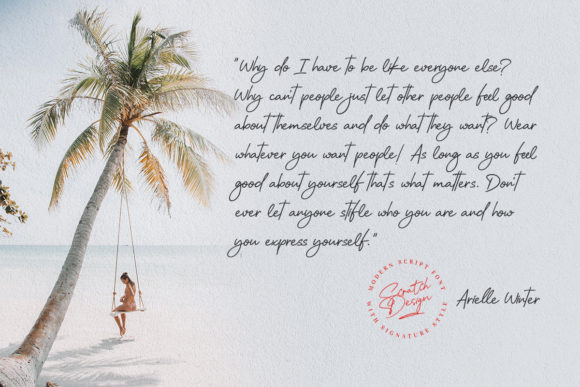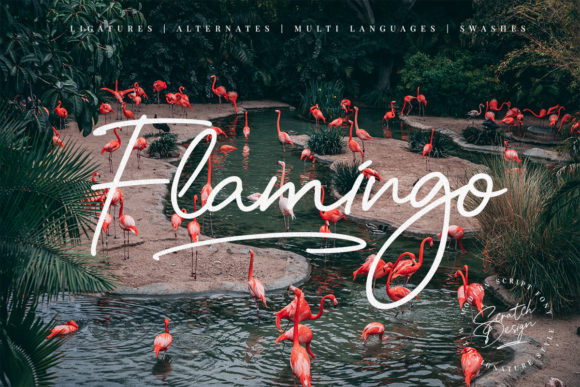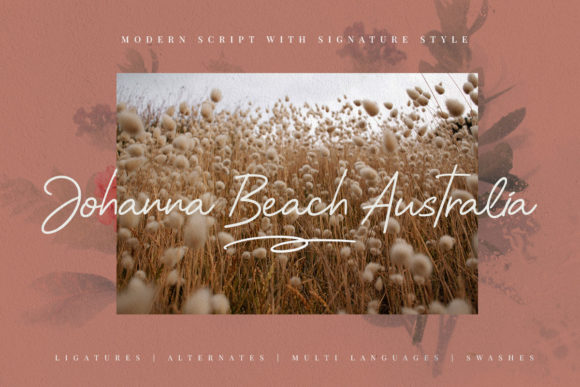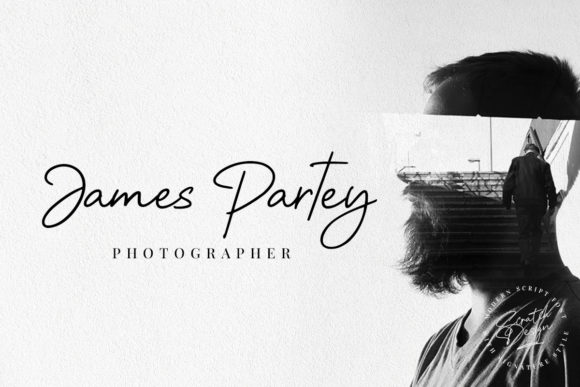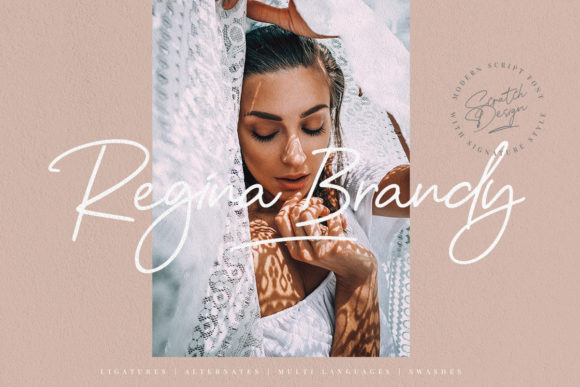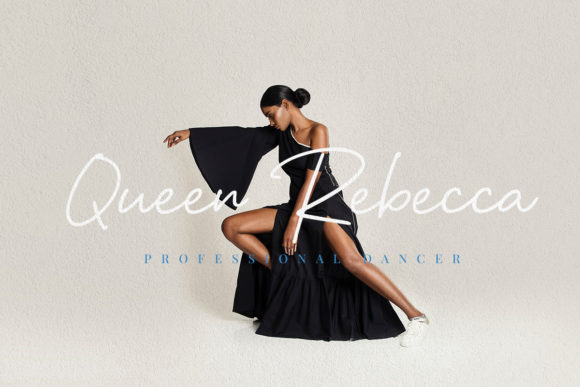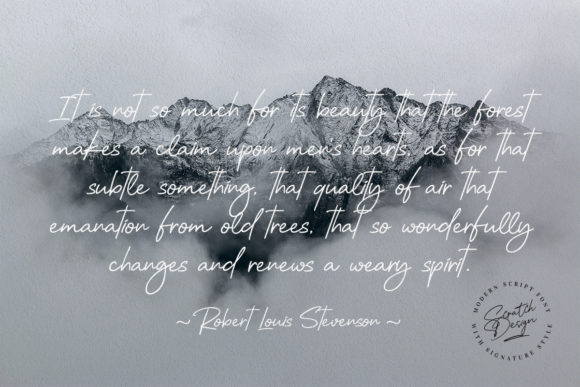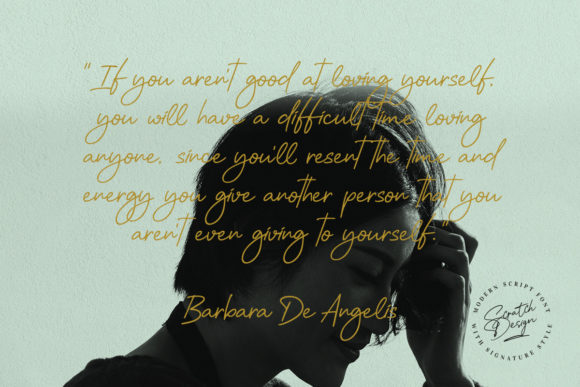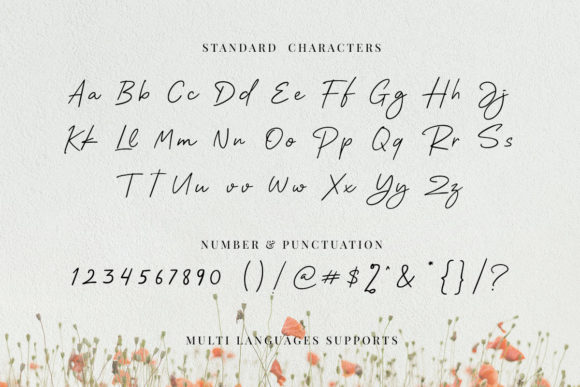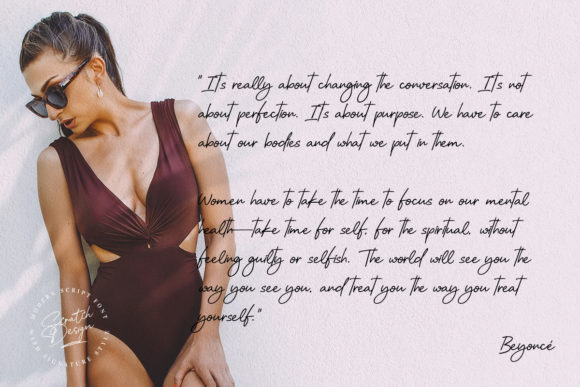
Romantica Signature Font
About Romantica Signature Font
Introducing “Romantica Signature,” a thin lettered and graceful script font that captivates with its ravishing style. This font is crafted to enhance the beauty of your designs, making it perfect for creating gorgeous wedding invitations, beautiful stationary art, eye-catching social media posts, and more.
Romantica Signature’s thin lettered script exudes a sense of grace and elegance, bringing a refined touch to your projects. Whether applied to wedding invitations, stationary art, or social media posts, this font elevates the visual appeal with its delicate and sophisticated style.
Imagine Romantica Signature setting the tone for your wedding invitations, adding a touch of romance and grace to the celebration. Envision it transforming your stationary art into captivating pieces that reflect an exquisite aesthetic. The font’s thin lettered design ensures a graceful and refined appearance, making it suitable for a variety of creative applications.
In essence, Romantica Signature is more than just a font; it’s a design element that brings a thin lettered and graceful script to your projects. Its ravishing style invites you to infuse your designs with a touch of elegance, turning each creation into a showcase of refined beauty. Choose Romantica Signature to add a delicate and sophisticated flair to your work, making it truly stand out with an enchanting aesthetic.